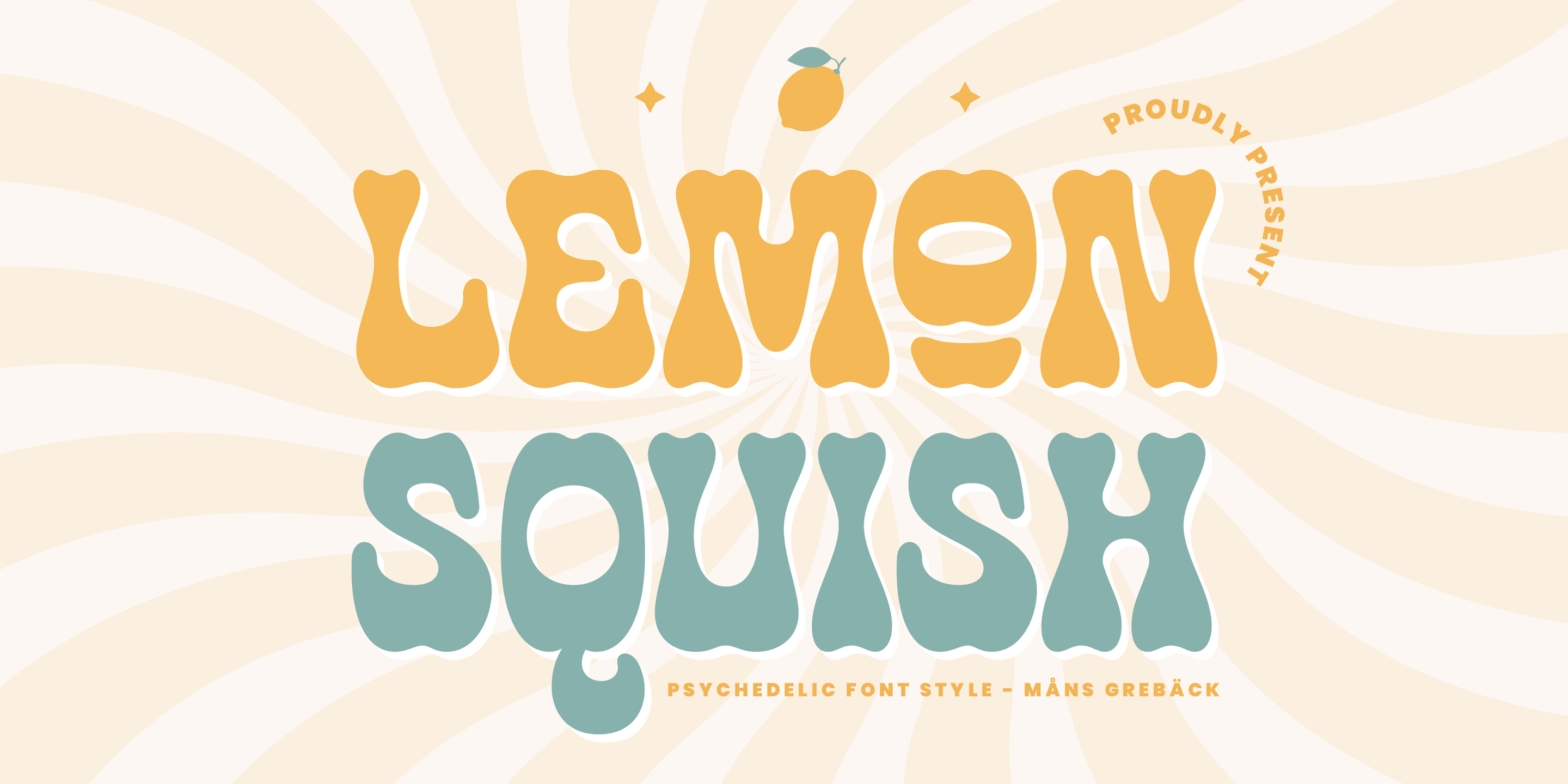
Lemon Squish Font is perfect for fresh juice bar branding, citrus product packaging, summer festival posters, playful children's books, vibrant food truck designs, tropical vacation advertisements, organic fruit labels, cheerful greeting cards, candy store signage, and energetic lifestyle brands that require bubbly typography with zesty personality and refreshing appeal.
What makes Lemon Squish Font so exciting is its delightful capture of citrus freshness through playfully compressed letterforms that bounce with vibrant energy. This font features squeezed, bubbly characters that mimic the juicy burst of fresh lemons, creating an instantly recognizable association with freshness, vitality, and natural goodness. The organic, slightly irregular shapes add authentic handcrafted charm while maintaining excellent readability, making it perfect for brands that want to convey freshness, fun, and natural authenticity.
The Lemon Squish Font family includes multiple weights and styles: Light, Regular, Bold, Extra Bold, and decorative variants with optional juice drop ornaments. Each weight maintains the signature squeezed citrus character while offering comprehensive flexibility for fresh design applications and zesty typographic expressions.
Fresh brand designers consistently choose Lemon Squish Font Free Download for projects requiring authentic organic typography that embodies natural freshness and playful energy. Whether you're creating beverage branding, developing summer marketing campaigns, designing healthy food packaging, or crafting vibrant children's content, this font delivers exceptional zest and natural appeal. The font's comprehensive character set includes playful alternates and organic styling options while ensuring optimal performance across both digital and print fresh applications, making it an essential tool for designers working on organic projects that demand fresh, energetic, and naturally inspired typography solutions with authentic citrus charm and vibrant personality.